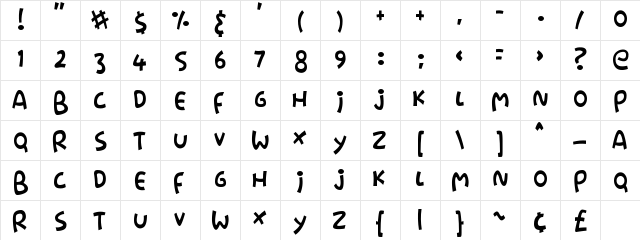
Stringz Regular
Design Context for Stringz Typeface
Stringz is a composed and adaptable typeface that performs quietly and consistently across a wide range of design contexts.
Pro Tip: Use Stringz in both headline and body roles to test its range before committing to a single application.